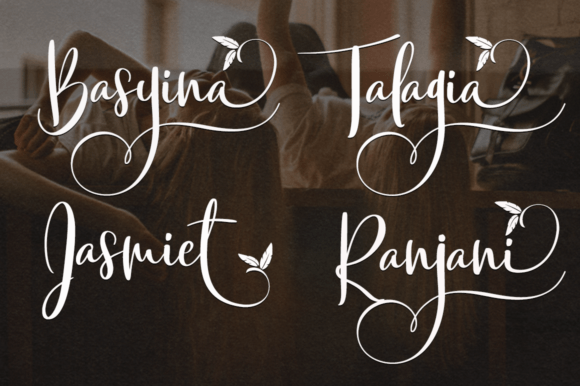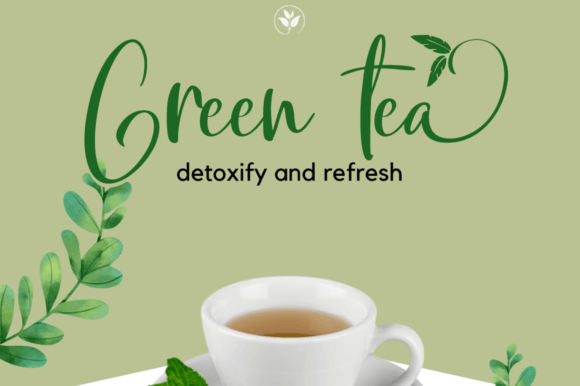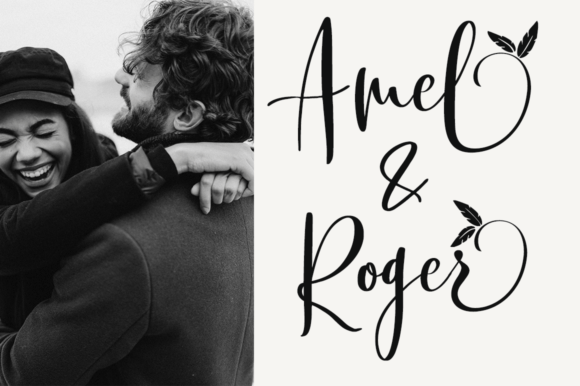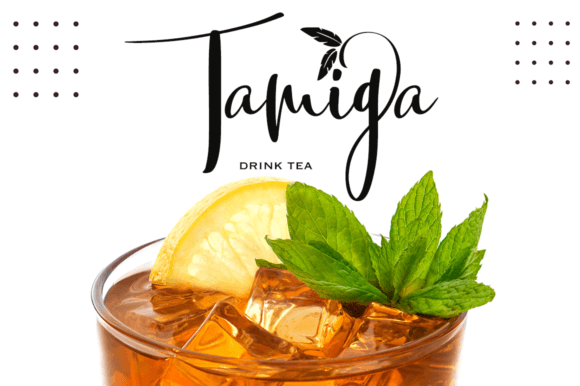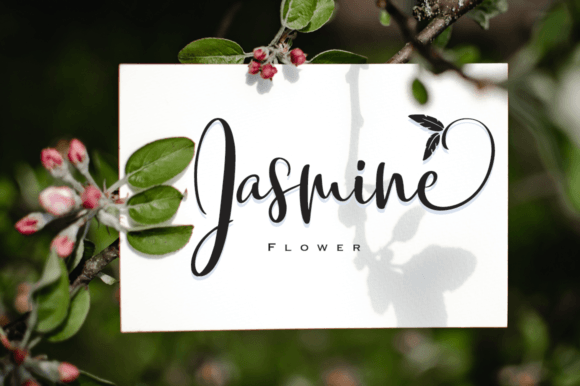
Introducing Bungaloe: The Elegant Handwritten Font to Elevate Your Designs
In the vast universe of typography, few fonts manage to capture the essence of elegance and charm as effortlessly as Bungaloe. This exquisite handwritten font is a masterpiece of design, bringing a touch of sophistication and refinement to any creative project it touches. With its unique blend of tender strokes and artful swashes, Bungaloe is not just a font – it’s an experience, a statement of style that transforms ordinary designs into visually enticing masterpieces.
The Distinctive Charm of Bungaloe
Bungaloe’s distinctive charm lies in its meticulously crafted characters, each adorned with refined swashes that add a layer of elegance and fluidity. These swashes are not merely decorative elements; they are integral to the font’s design, making every character unique and contributing to the overall aesthetic appeal of the text. Whether it’s used for captivating letterheads, eye-catching titles, or bespoke stationery designs, Bungaloe brings a level of sophistication that is hard to match.
One of the standout features of Bungaloe is its versatility. This font is not limited to a specific genre or medium; it can seamlessly integrate into a myriad of craft-oriented concepts. From traditional print designs to modern digital media, Bungaloe’s adaptability makes it an invaluable asset for designers and crafters. Whether you’re working on a vintage-inspired project or a contemporary design, Bungaloe can add that special touch of elegance and charm that sets your work apart.
Enhancing Your Designs with Bungaloe
So, how can you leverage the elegance of Bungaloe to enhance your designs? Here are a few ideas to get you started:
- Letterheads and Stationery: Add a professional yet personal touch to your correspondence with Bungaloe. Its unique swashes and elegant strokes make it perfect for creating distinctive letterheads and bespoke stationery designs.
- Eye-Catching Titles: Use Bungaloe to create titles that grab attention. Its decorative swashes can be used to add a touch of drama and flair to headings, making your content stand out.
- Digital Media: Bungaloe is not just limited to print. Its elegance translates well to digital media, making it an excellent choice for website headers, social media graphics, and more.
- Branding and Packaging: For brands looking to add a touch of sophistication and elegance to their packaging or branding materials, Bungaloe can be a game-changer.
Why Choose Bungaloe?
In a world where design trends are constantly evolving, Bungaloe offers a timeless appeal that can elevate your creative projects to new heights. Here are a few reasons why Bungaloe should be your go-to font:
- Unique and Original: Bungaloe’s distinctively original appearance ensures that your designs stand out from the crowd.
- Elegance and Charm: With its tender strokes and refined swashes, Bungaloe brings an unmatched level of elegance and charm to any design.
- Versatile: Suitable for a wide range of projects, from traditional print designs to modern digital media.
Bungaloe is more than just a font – it’s a design statement. Its elegant strokes, refined swashes, and unique character set make it the perfect choice for designers and crafters looking to add a touch of sophistication and charm to their projects. Whether you’re working on a bespoke stationery design, an eye-catching title, or a digital project, Bungaloe has the potential to transform your designs into visually enticing masterpieces. So, why settle for ordinary when you can create something extraordinary with Bungaloe?
Embrace the elegance of Bungaloe and discover a world of creative possibilities. Let this beautiful handwritten font be the cornerstone of your next design project, and experience firsthand the impact it can have on elevating your creative endeavors to new heights of sophistication and charm.